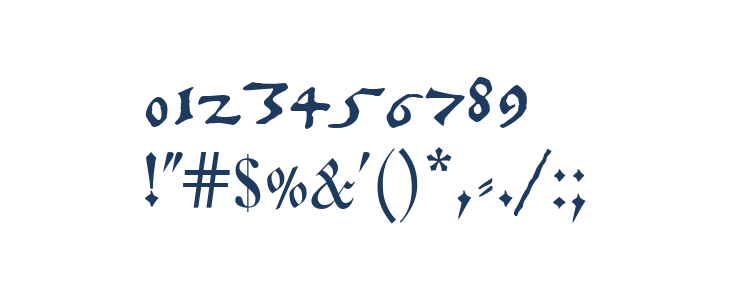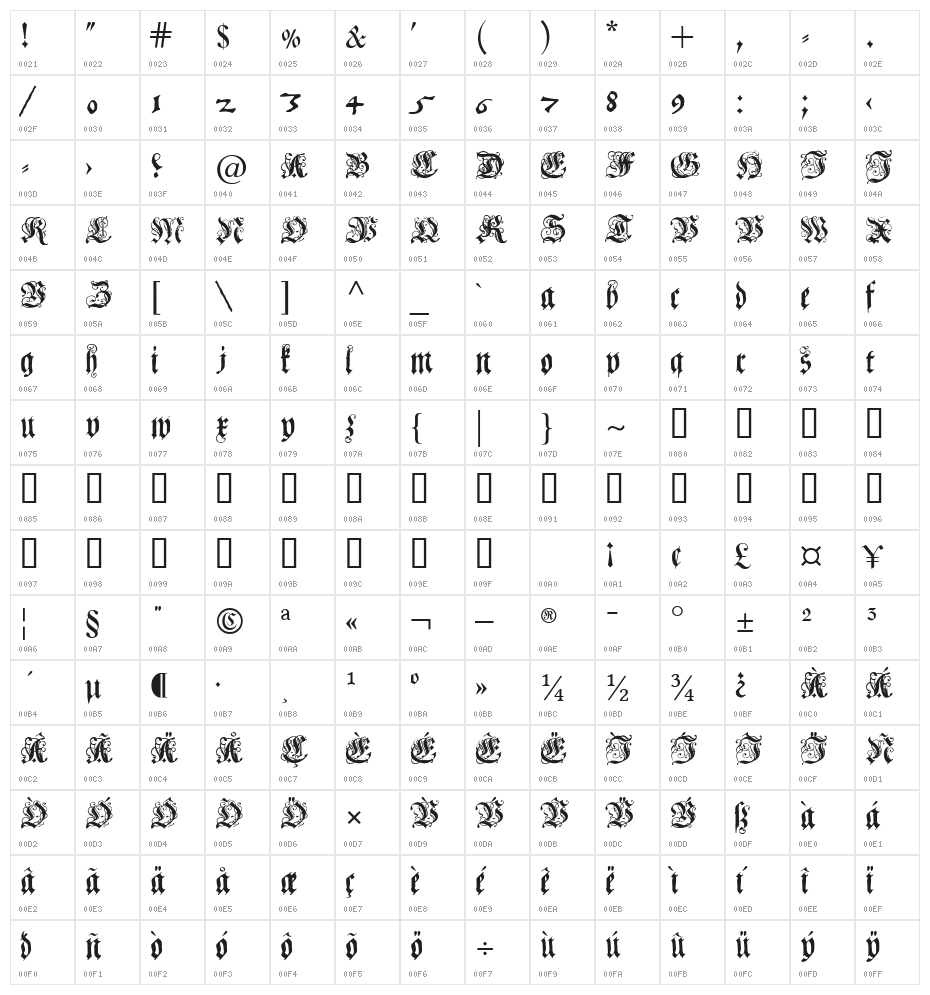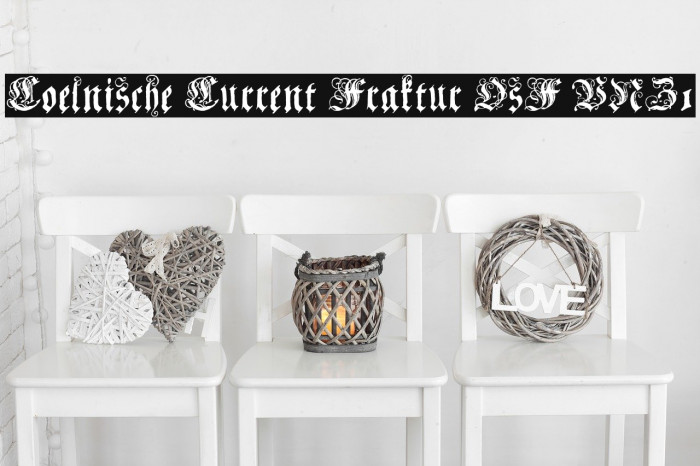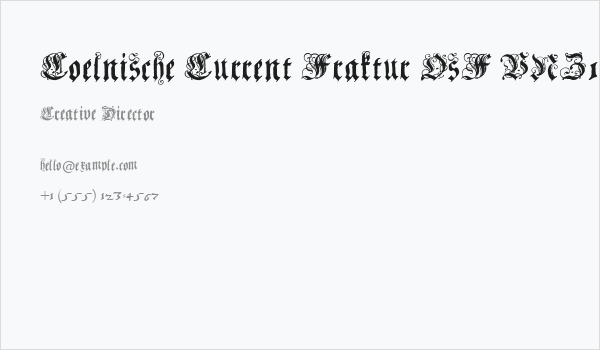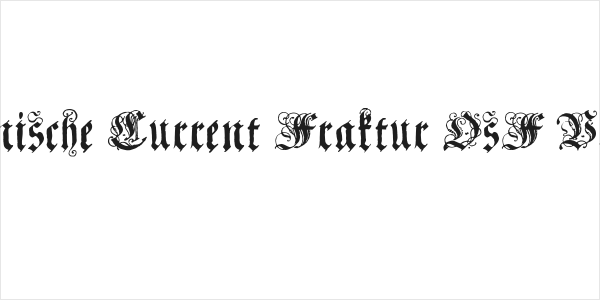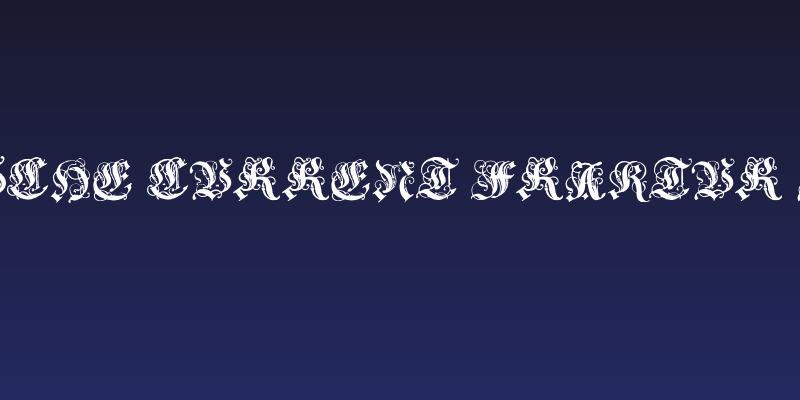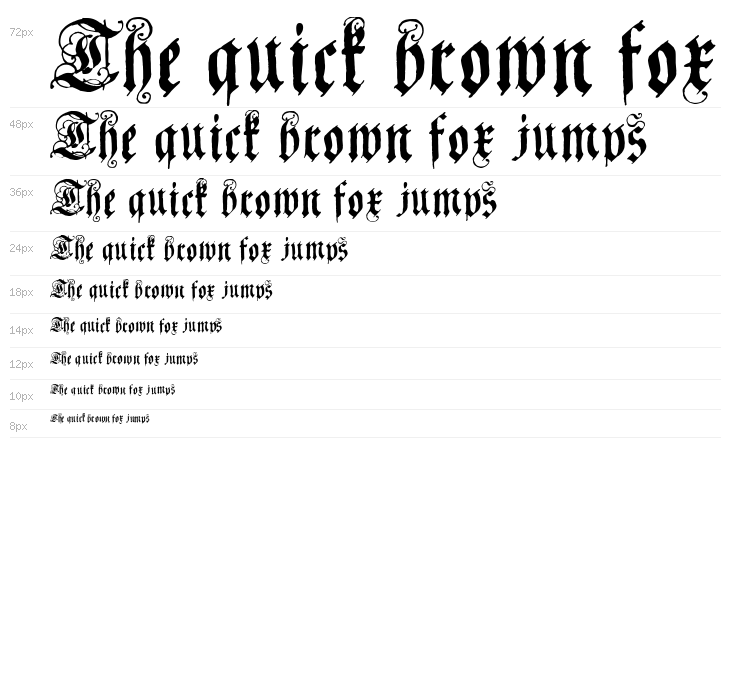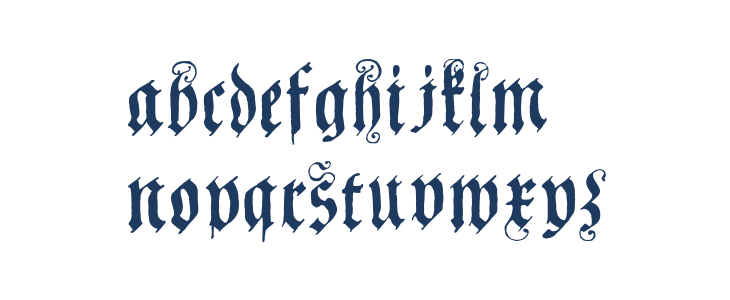
Coelnische Current Fraktur OsF UNZ1 Font
Coelnische Current Fraktur OsF UNZ1 Description
This font embodies the intricate and ornate style of traditional blackletter typefaces. It features elaborate swirls and flourishes, particularly in the uppercase letters, which give it a highly decorative and historical appearance. The lowercase letters maintain a more structured and readable form, while still retaining the characteristic sharp angles and bold strokes of blackletter fonts. The numerals are stylized with a similar flair, ensuring consistency across the character set. Special characters are equally ornate, adding to the font's overall aesthetic. This font is ideal for projects that require a touch of historical elegance or a medieval theme.
| Use Case | Headlines, Logos, Decorative text |
| Proposed Projects | Suitable for historical documents, medieval-themed designs, invitations, and decorative headings. |